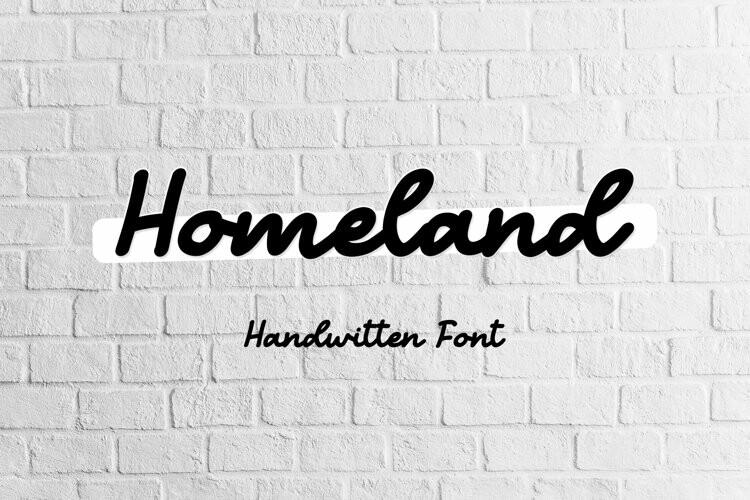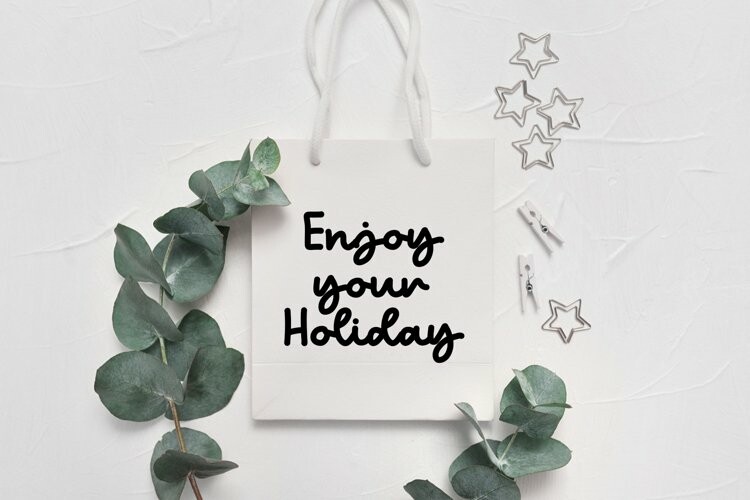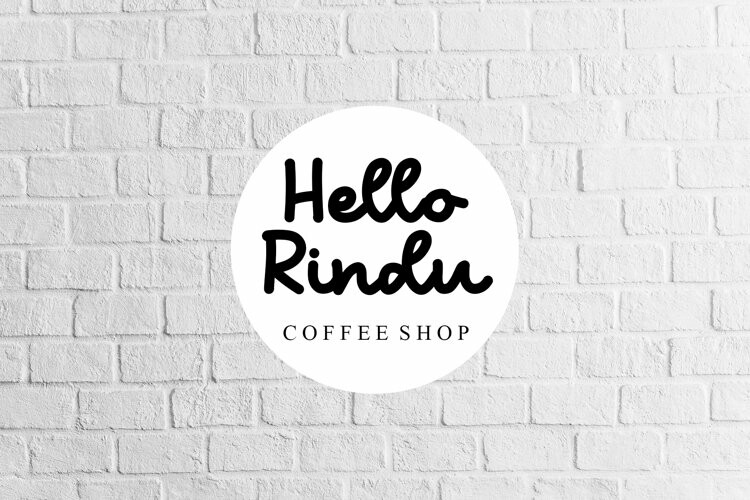
Homeland Font
Homeland FontHomeland is a Natural handwritten font. It is the best choice for creating eye catching logos, branding and quotes. Every letter has a unique and beautiful touch, which will make your design come alive!